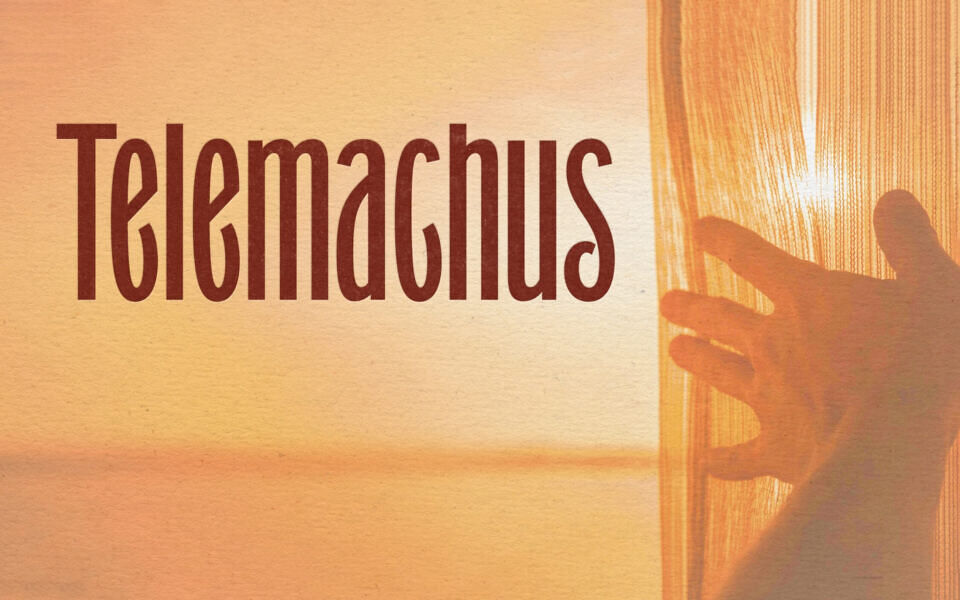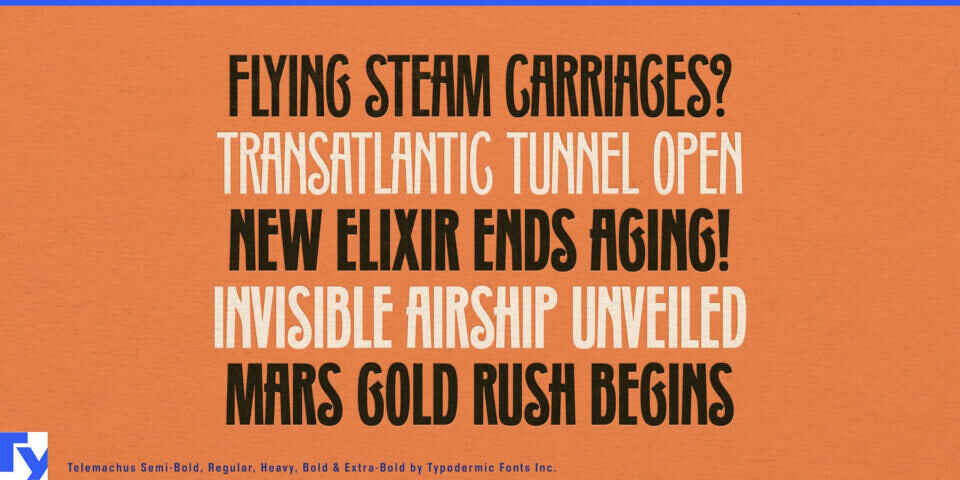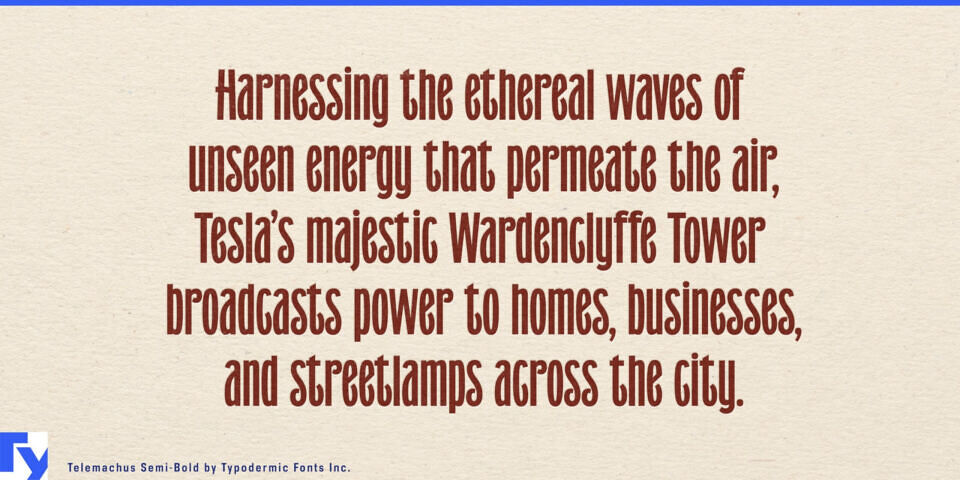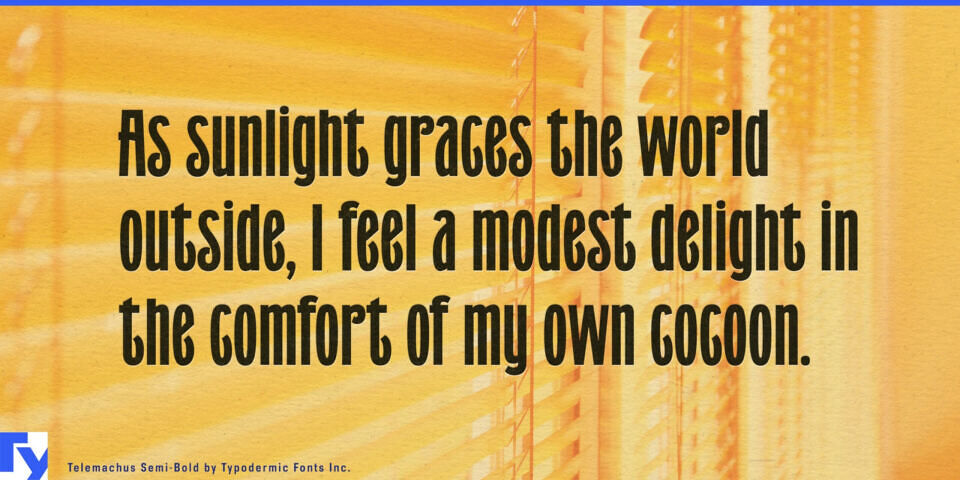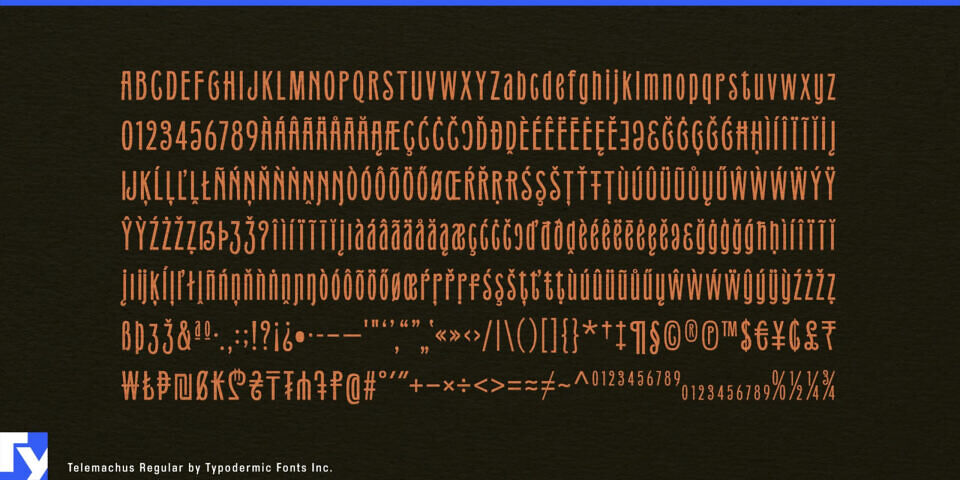
Telemachus is an ultra-compressed sans serif inspired by 19th-century metal type, reworked for contemporary design. Its towering x-height and narrow proportions deliver strong impact in minimal horizontal space, while rounded terminals soften the vertical tension.
Ideal for headlines, posters, packaging, and other space-tight layouts, Telemachus brings vintage character into a clean modern form. With broad Latin language support, it offers a confident, distinctive voice for display typography.